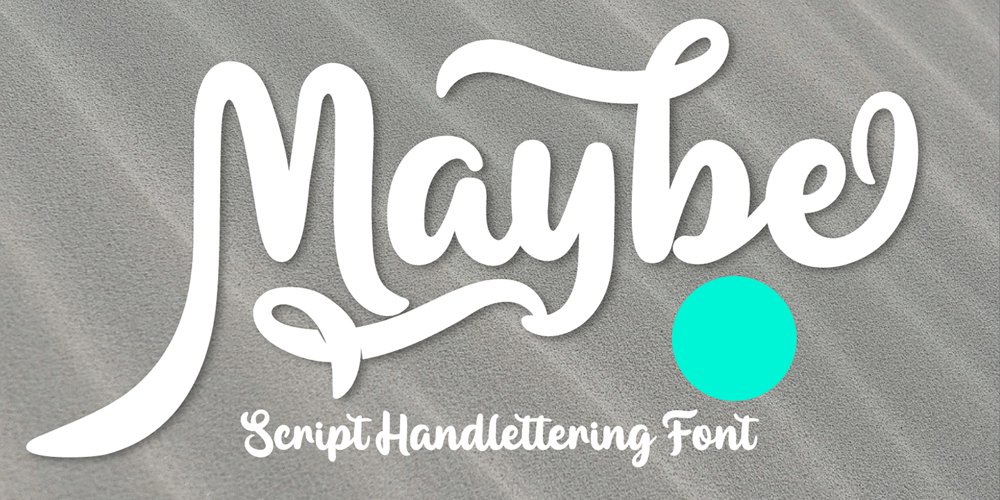
Maybe Font Family was designed by Rozikan and published by Twinletter. Maybe contains 1 styles and family package options. Introducing our new Font called MaybeThis font has a young, powerful and energetic character, nuances of Halloween and Christmast, of course it is very suitable to be used for modern and vintage projects, the beautiful and beautiful lettering makes this font look charming for you to use as a title, logo or anything else in any design project. you.This charming font also offers the beauty of abstract typography harmony for a wide variety of design projects, including digital natural handwriting for designs, quote designs, for social media business designs, advertisements, trademarks, food and beverage promotion banners, text, posters, a signature, and all designs require handwriting or whatever design you want.This font is equipped with uppercase, lowercase, numbers, punctuation marks, swhases and several variations on each character including multi-language.==================================================This font is best suited for open type friendly applications. How to get alternative glyphs from open type fonts: http://adobe.ly/1m1fn4YPUA Character Code – Fully accessible without additional design software.do not hesitate anymore start using this font. and Feel free to send any message you want to convey.